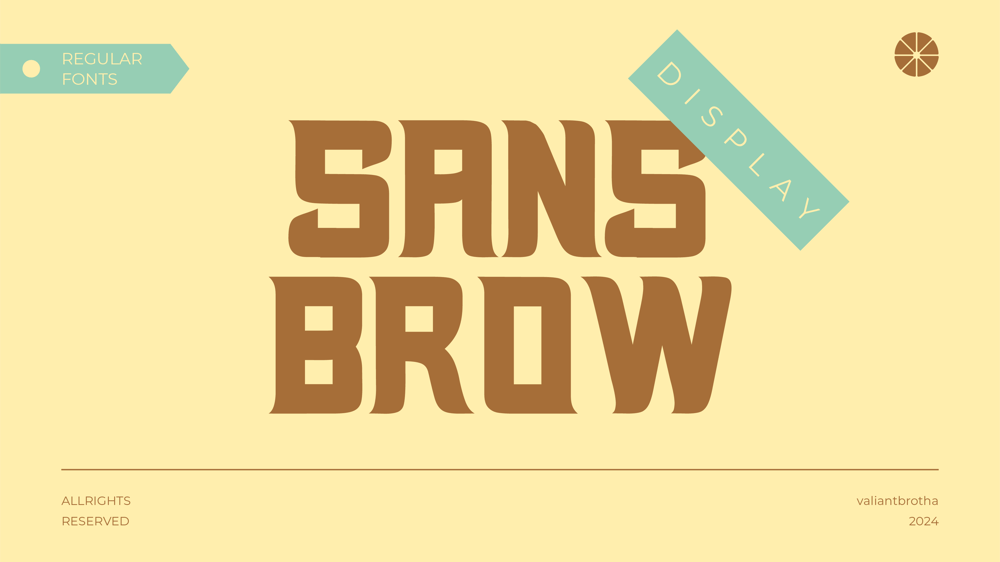
Sunsbrow
Sunsbrow font
Sunsbrow Font Family was designed by Agus Prima and published by Valiantbrotha. Sunsbrow contains 2 styles and family package options. Sunsbrow is a retro-inspired display font that brings a nostalgic yet modern flair to any design. With its bold, geometric shapes and distinct letterforms, it captures the essence of classic signage and typography from the mid-20th century.